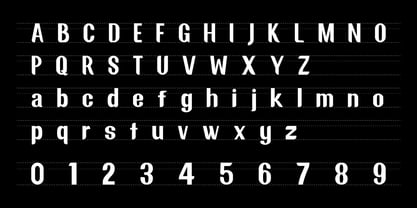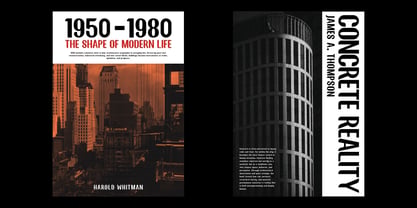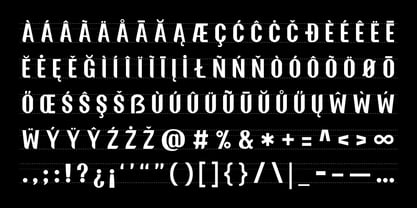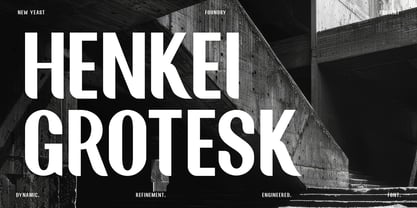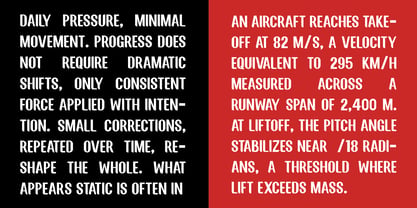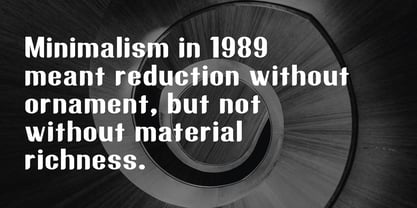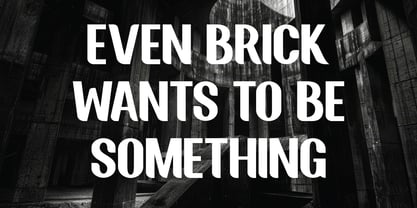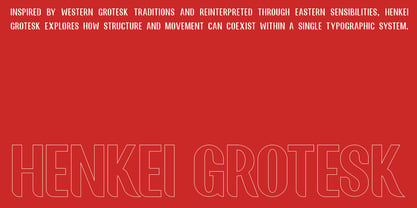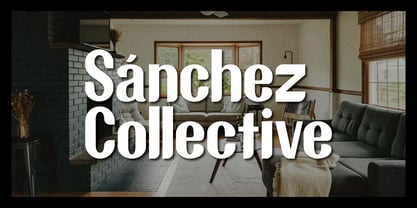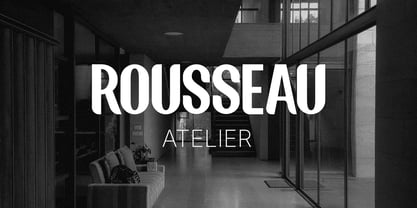
Henkei Grotesk
by New Yeast Foundry
The Henkei Grotesk Font Family was designed by Indratama Yogi and published by New Yeast Foundry. Henkei Grotesk contains 4 styles and family package options. More about this family
Henkei Grotesk is a contemporary sans serif built on structural clarity and restrained geometry. While grounded in the discipline of the grotesque tradition, it carries a subtle Eastern sensibility. Its curves are shaped with a quiet sense of movement, reminiscent of brush-drawn strokes, giving the forms a natural direction and internal rhythm. The result is measured yet expressive, composed yet alive. Developed as a versatile editorial tool, Henkei performs consistently across headlines, subheads, and extended reading contexts. The weight progression is controlled and stable, ensuring smooth hierarchy in layout systems. Beneath its rational proportions lies a gentle dynamism, where tension within the curves introduces elegance without disrupting neutrality. Its architectural quality emerges from its balance between structure and flow. The disciplined construction ensures clarity and legibility, while the directional curves introduce a sense of spatial movement. This makes Henkei particularly suited for architecture publications, spatial branding, cultural institutions, and design systems where precision and form must coexist. It communicates structure without rigidity, and elegance without excess. The character set supports essential Latin based languages and includes professional punctuation and symbols suited for publishing environments. Whether used in magazine layouts, branding systems, cultural publications, or contemporary visual identities, Henkei Grotesk delivers quiet authority with refined motion.
Designers: Indratama Yogi
Foundry: New Yeast Foundry